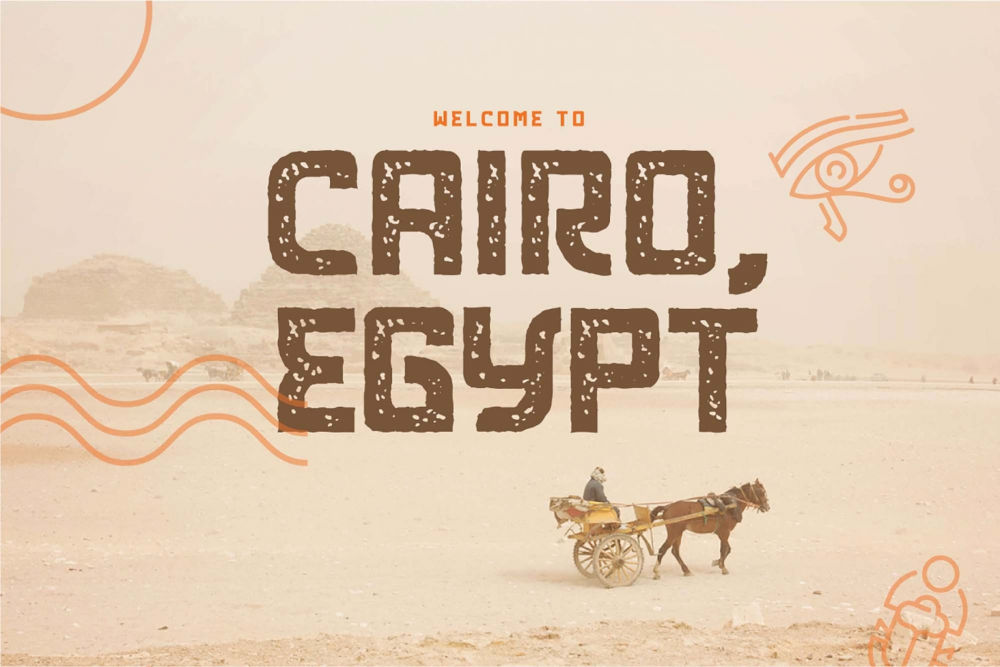
Khepri – Modern Egyptian Typeface (Free Version)
Introduce Kheprid by Ochaya Designs, a sans serif typeface inspired by Egyptian hieroglyphics with a modern twist.
Each character is designed to have it’s own uniqueness and personality. It works perfect as a stand alone, or with title headings for festival/movie posters or even your blog. Also, can be put to work as a logo.